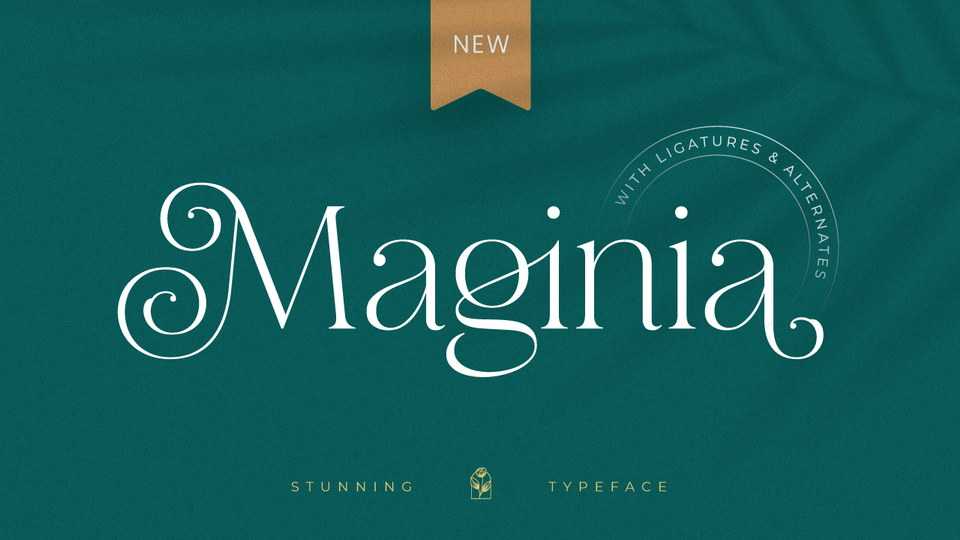
Download Maginia font, a delicate and stylish serif typeface to make your project look more unique, beautiful and awesome like magic. Maginia font is very suitable to be applied to various formal designs.
Designer: Digitype Studio